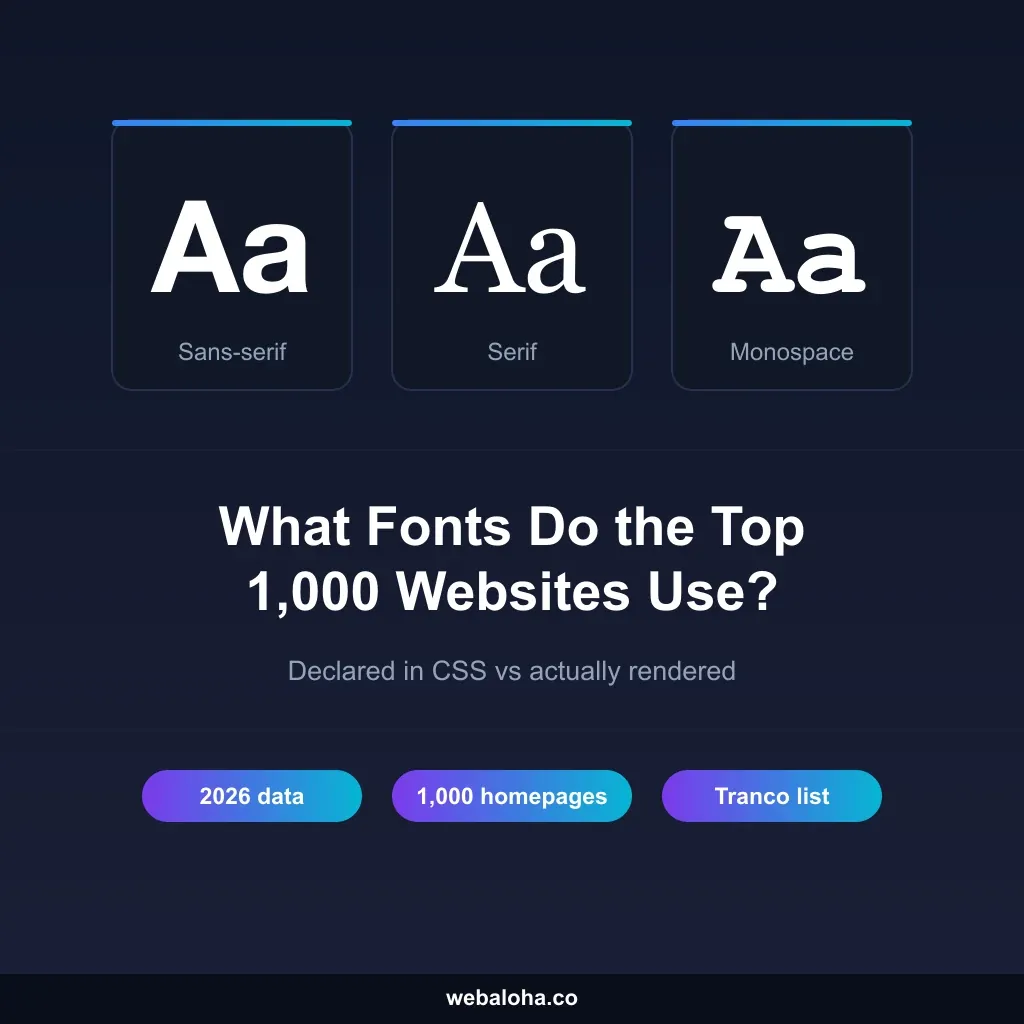
No single font rules the web’s busiest homepages. We loaded the homepages behind the top 1,000 domains of the Tranco ranking on 26 September 2026 and measured 511 distinct homepages. Inter drew most of the body text on 41 of 511 (8%), the operating system’s own UI font on 38 (7%), and Arial on 29 (6%). Altogether, 213 different families served as the main body font, and 159 homepages used a body font that no other measured homepage used.
We also recorded what each page’s CSS declares, and that tells a different story. Arial is named somewhere in the CSS of 443 of 511 (87%) homepages, yet it draws the main body text on only 29 (6%). If you want to know what visitors actually see, you have to look at what the browser renders, not at the stylesheet.
This page shares the results, the method, the limits and the full dataset. Percentages are shares of the 511 measured homepages unless another n is given.
Key Findings
- Inter and the system UI font lead, narrowly. Inter (41, 8%) and the system UI font (38, 7%) are the most common main body fonts, ahead of Arial (29, 6%), Open Sans (26, 5%) and Roboto (26, 5%).
- The long tail is long. The ten most common families cover 223 of 511 (44%) homepages. 159 of the 213 body families appear on a single homepage, many of them custom or licensed brand fonts.
- Most homepages use a web font for body text. 387 of 511 (76%) homepages set their body text in a web font, 38 (7%) in the system UI font and 86 (17%) in another installed font, mostly Arial, Helvetica or, on Chinese sites, PingFang SC.
- Declared is not rendered. The median homepage names 13 font families in its CSS but draws its visible text in 2. Consolas, a Windows code font, is named by 220 (43%) homepages and drew no visible text at all in our crawl.
- Self-hosting beats Google Fonts. 396 of 511 (77%) homepages downloaded font files from their own domain or CDN, 108 (21%) from Google Fonts servers (including Google’s own sites) and 9 (2%) from Adobe Fonts. 68 (13%) downloaded no font files at all.
- Sans-serif everywhere. Sans-serif families are the main body font on 486 of 511 (95%) homepages. Serif body text is rare (19, 4%), and about half of it is on news sites.
The Most Common Body Fonts
The table counts the family that drew the most visible characters outside h1 to h3 headings on each homepage. The “Type” column says how the font reached the screen: a downloaded web font looks the same on every device, while the system UI font and other installed fonts depend on the visitor’s operating system. Our results for those two rows are what a Mac shows.
| Main body font | Homepages (n = 511) | Type |
|---|---|---|
| Inter | 41 (8%) | Web font |
| System UI font | 38 (7%) | System UI font |
| Arial | 29 (6%) | Installed font |
| Open Sans | 26 (5%) | Web font |
| Roboto | 26 (5%) | Web font |
| Source Sans | 15 (3%) | Web font |
| PingFang SC | 13 (3%) | Installed font |
| Helvetica Neue | 12 (2%) | Installed font |
| Proxima Nova | 12 (2%) | Web font |
| Helvetica | 11 (2%) | Installed font |
| Lato | 9 (2%) | Web font |
| Poppins | 9 (2%) | Web font |
| Segoe UI | 8 (2%) | Web font |
| Google Sans | 5 (1%) | Web font |
| Times | 5 (1%) | Installed font |
A few examples from the dataset: Inter is the body font of wordpress.org, wordpress.com, zoom.us, epicgames.com, twitch.tv and cisco.com. The system UI font runs Instagram, LinkedIn, Wikipedia and ChatGPT’s homepage. Arial still carries the body text of Google’s homepage, Amazon and Mail.ru. Roboto is YouTube’s body font, and all 8 Segoe UI homepages belong to Microsoft.
Below the top 15, the list gets personal fast. It includes brand families such as Airbnb Cereal, GitHub’s Mona Sans, OpenAI Sans, Anthropic Sans, the BBC’s Reith fonts, Spotify Mix and TikTok’s own family, and licensed commercial families such as Söhne (Stripe and Medium) and Graphik. For many of the web’s biggest brands, typography is part of the identity, not a default.
The Most Common Heading Fonts
Headings tell the same story with a little more variety. 458 of 511 (90%) homepages had visible h1 to h3 text; the table uses that n.
| Main heading font | Homepages (n = 458) | Type |
|---|---|---|
| System UI font | 27 (6%) | System UI font |
| Inter | 21 (5%) | Web font |
| Open Sans | 20 (4%) | Web font |
| Roboto | 18 (4%) | Web font |
| Arial | 16 (3%) | Installed font |
| Montserrat | 11 (2%) | Web font |
| Poppins | 10 (2%) | Web font |
| Google Sans | 9 (2%) | Web font |
| PingFang SC | 9 (2%) | Installed font |
| Proxima Nova | 9 (2%) | Web font |
| Helvetica Neue | 8 (2%) | Installed font |
| Source Sans | 8 (2%) | Web font |
326 of 458 (71%) homepages with headings use the same family for headings and body text. Some well-known pairings: Google pairs Arial body text with Google Sans headings, Amazon pairs Arial with Amazon Ember Modern, Wikipedia pairs the system UI font with Georgia, and wordpress.org pairs Inter with EB Garamond.
Sans-serif dominates. It was the main body font on 486 of 511 homepages (95%) and the main heading font on 413 of 458 homepages with headings (90%). Serif body text appeared on 19 homepages (4%), about half of them news publishers such as the BBC, NPR and the Financial Times.
How many fonts does a popular homepage use?
Usually two families or fewer. The median homepage drew its visible text in 2 font families and downloaded 4 font files. 326 of the 458 homepages with headings (71%) used the same family for headings and body text.